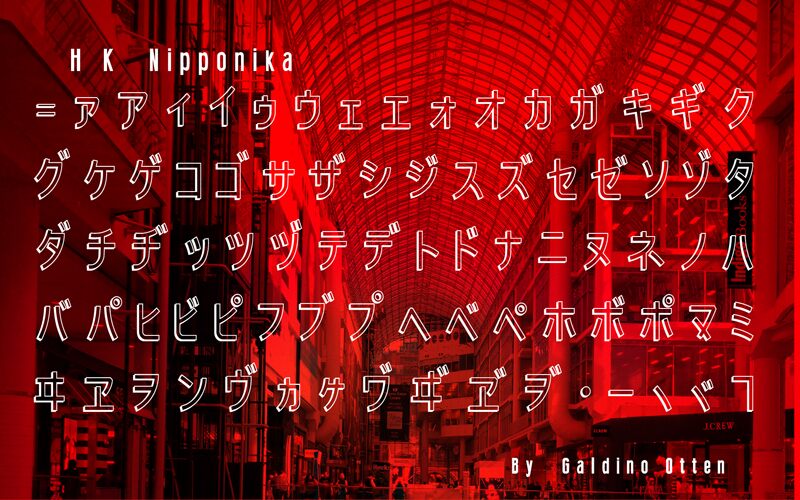
Introducing H K Nipponika, a captivating dingbats font designed by Galdino Otten. With its unique fusion of Asian aesthetics and intricate Japanese characters, this font brings a touch of elegance and cultural richness to any project. Perfect for graphic design endeavors seeking a distinctively captivating appeal, H K Nipponika complements branding projects, editorial layouts, or even tattoo designs. Its versatile range of dingbats makes it an ideal choice for adding decorative elements to websites, packaging designs, or social media graphics. Illuminate your creations with the allure of H K Nipponika's Asian-inspired charm.